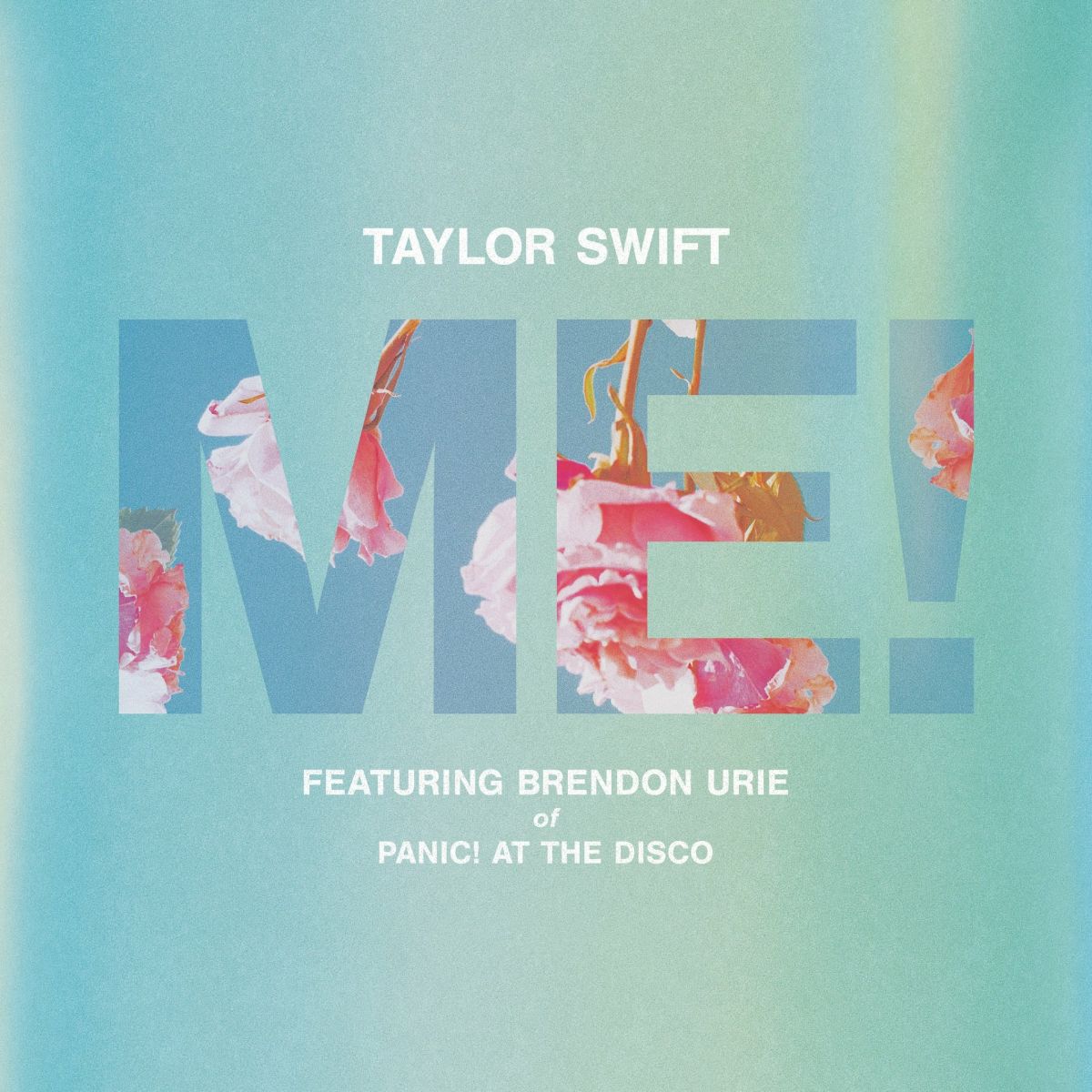
Me! (Taylor Swift) Font
Fonts in Use“Me!” is a pop song by Taylor Swift featuring Brendon Urie, released in 2019 as the lead single for her seventh studio album "Lover", known for its uplifting message and colorful music video.
The cover art showcases the timeless sans-serif font, Helvetica by Max Miedinger and Eduard Hoffmann. Meanwhile, the opening text of the music video employs a combination of fonts including Sant’Elia Script by Ryan Martinson, Amy Hood’s Palm Canyon Drive and Lion and Hare by Greg Nicholls.